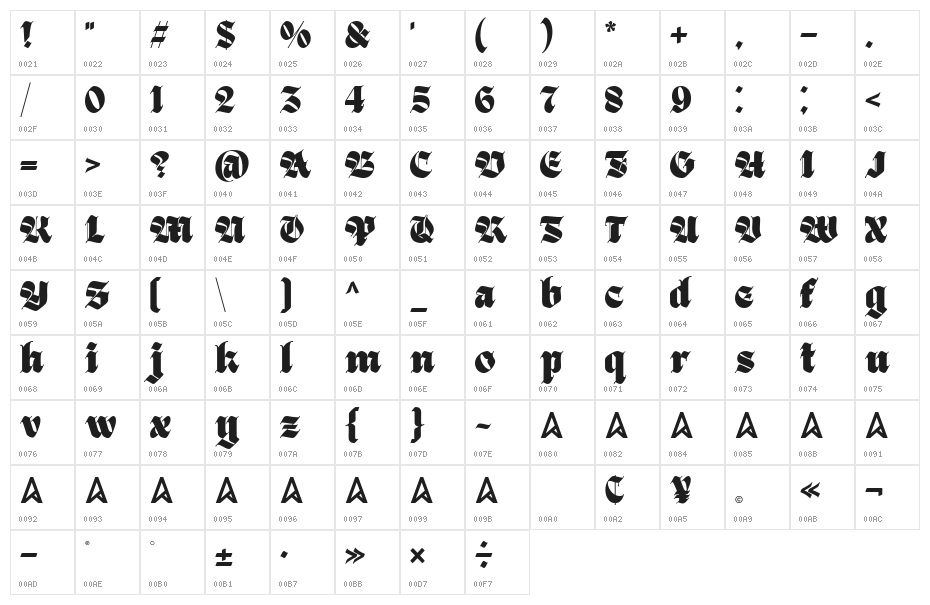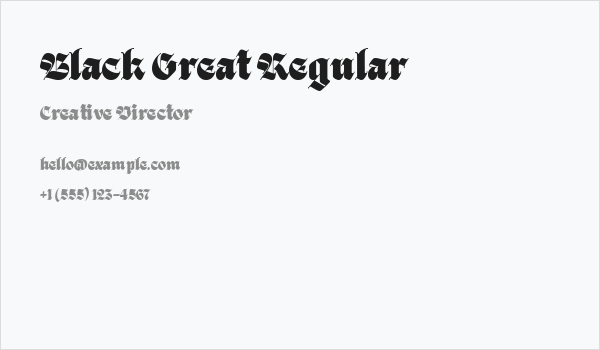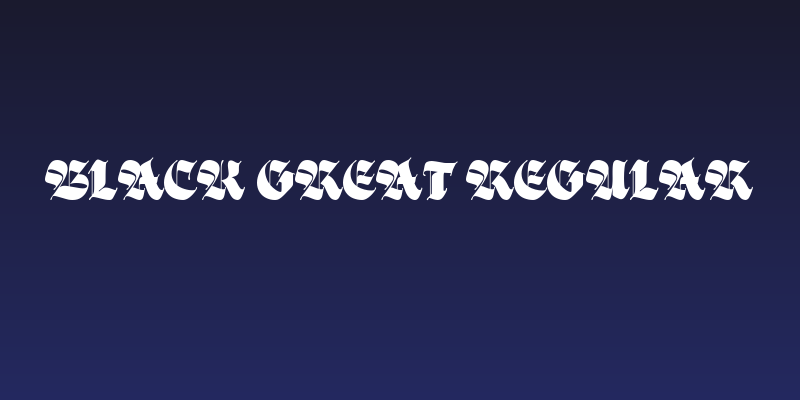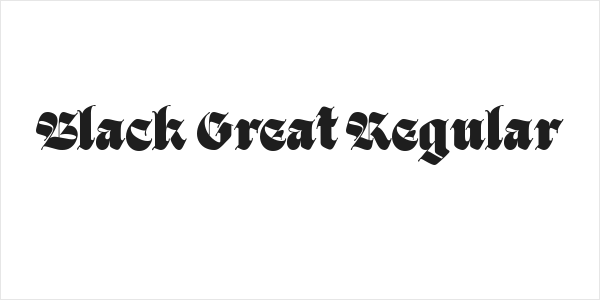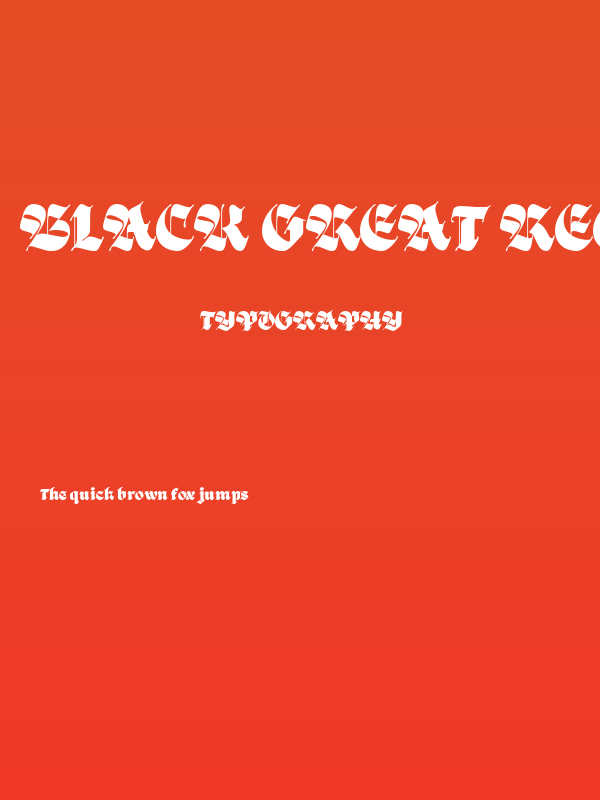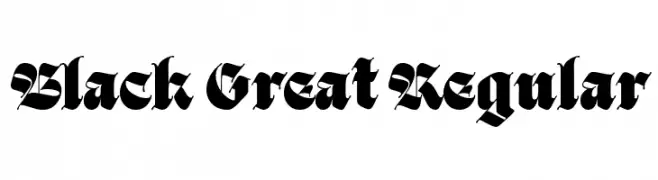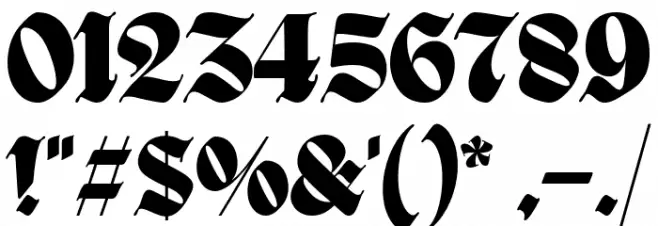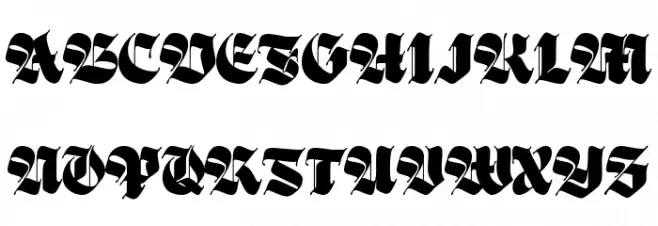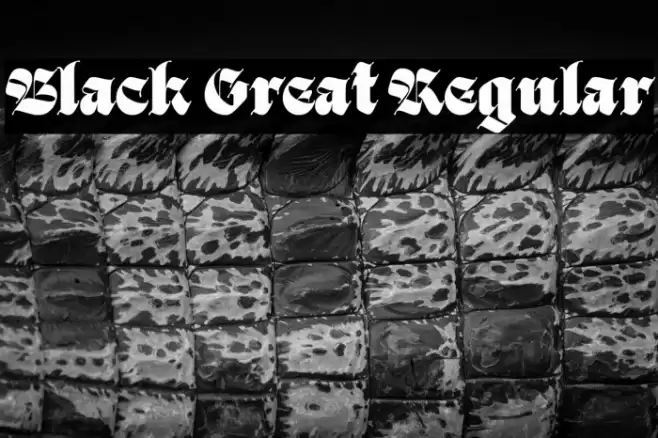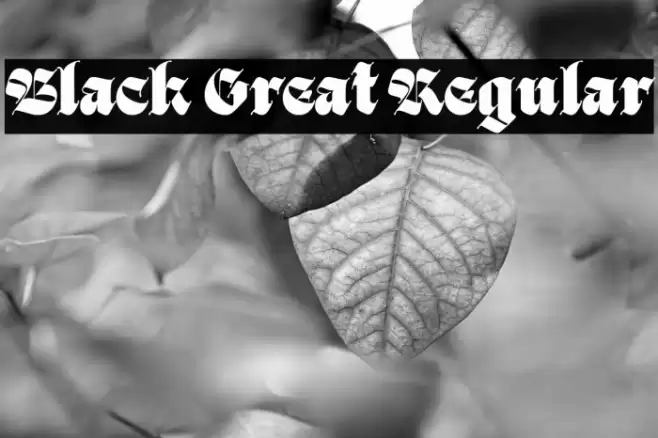
Black Great Regular Font
Black Great Regular Description
A bold, gothic-style blackletter font with ornate, sharp edges and a traditional medieval appearance.
| Overall Style | Gothic, Medieval, Vintage |
| Use Case | Headlines, Logos, Posters, Branding |